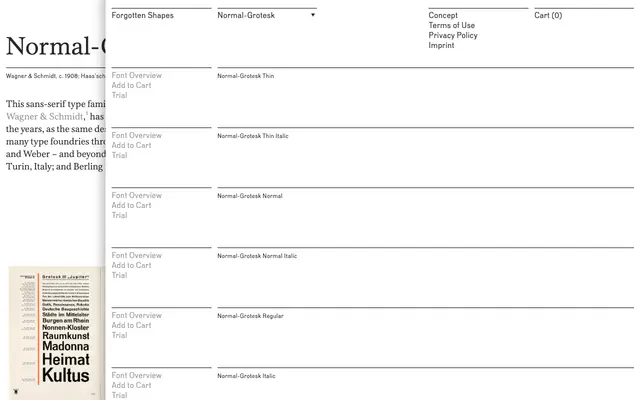
Normal-Grotesk
Forgotten Shapes · Stephan Müller · 2011
A digital revival by Stephan Müller of a 1908 Wagner & Schmidt grotesque that circulated across Europe under at least a dozen different names, most famously as Aurora-Grotesk and Akzidenz-Grotesk.
The original design was developed at the Leipzig punchcutting firm Wagner & Schmidt around 1908 and subsequently sold as matrices to foundries across Germany, Austria, Italy and Sweden, each issuing it under its own name. Haas in Münchenstein cast it as Accidenz-Grotesk in the 1910s, then expanded and reworked it in the 1950s under the name Normal-Grotesk. Stephan Müller's revival, developed between 2011 and 2019, recovers that specific Haas iteration across five weights from Thin to Black, each with a matching italic.
A revival of an early twentieth-century German grotesque originating at Wagner & Schmidt in 1908, circulated across Europe under many names; falls squarely within the historical grotesque tradition, sharing lineage with Akzidenz-Grotesk.